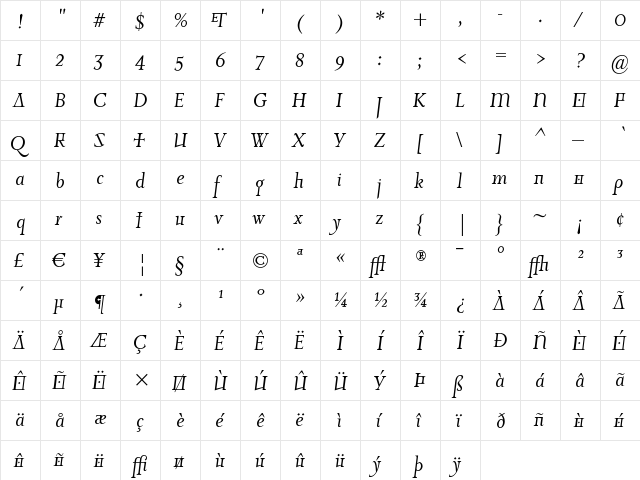
PrioriSerRegItalicAlt Regular
| Designer | Jonathan Barnbrook |
Design Context for PrioriSerRegItalicAlt Typeface
PrioriSerRegItalicAlt offers clean, dependable letterforms without strong stylistic allegiance, making it a practical choice for designers who need flexibility. Its italic angle brings a sense of urgency and motion to the letterforms.